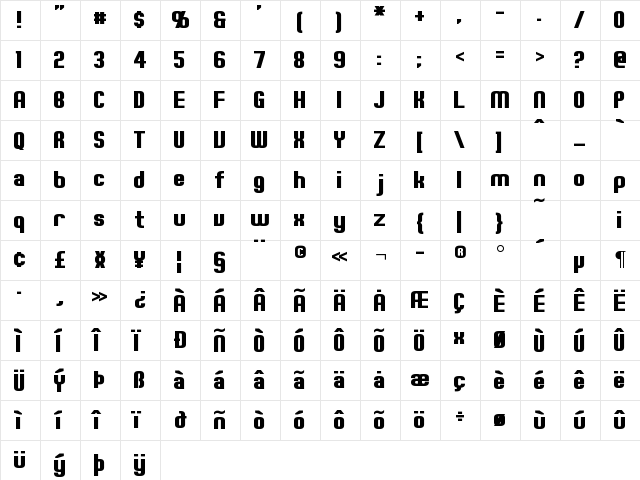
Erte Regular
| Foundry | Neale Davidson |
| Designer | Neale Davidson |
Design Context for Erte Typeface
Erte takes a measured approach to typography — its balanced proportions and neutral character make it a reliable workhorse for both digital and print work.